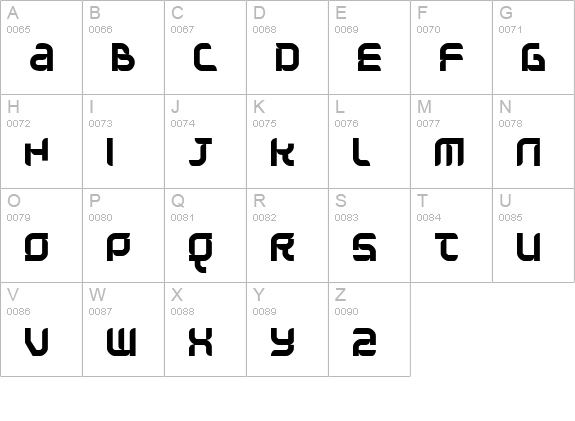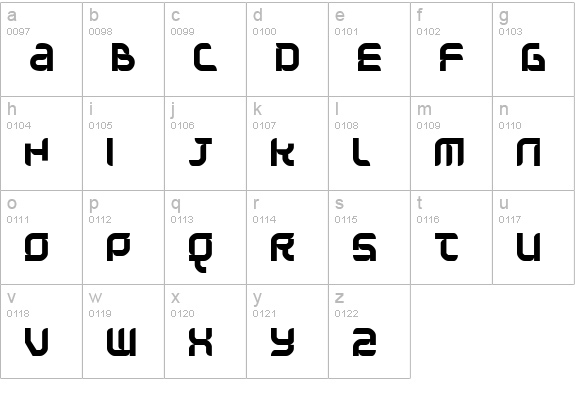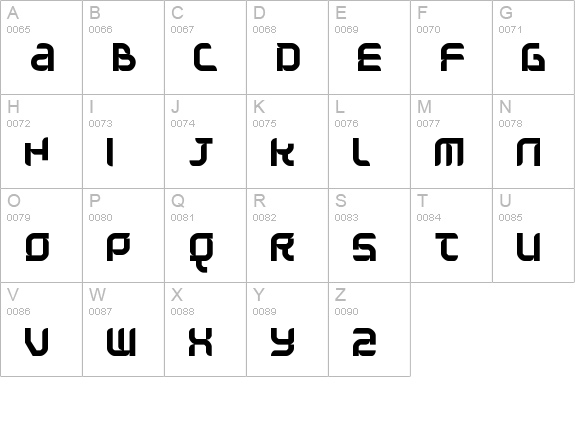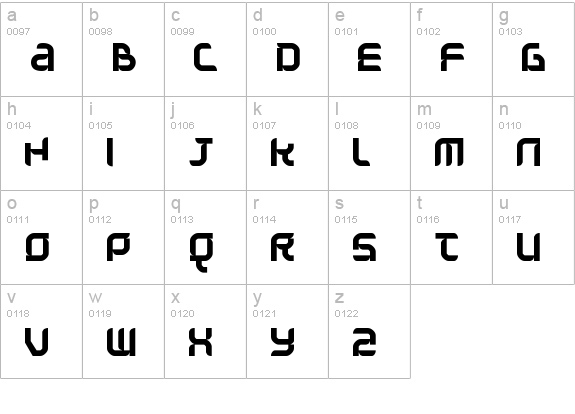
Question of time [simple] Font Details
Question of Time is a simple yet captivating font that will add a touch of elegance to any design project. With its clean lines and timeless appeal, this font is perfect for creating eye-catching headlines, logos, and branding materials. The simplicity of Question of Time makes it easy to read, ensuring that your message is delivered clearly and effectively. But what makes this font even more appealing is the fact that it is available for free download at FontsMarket.com. Yes, you read that right - Question of Time is freely available for you to use in your personal and commercial projects. Now you can add a touch of sophistication to your designs without worrying about breaking the bank. So why wait? Download Question of Time now from FontsMarket.com and start creating stunning designs that will stand the test of time.